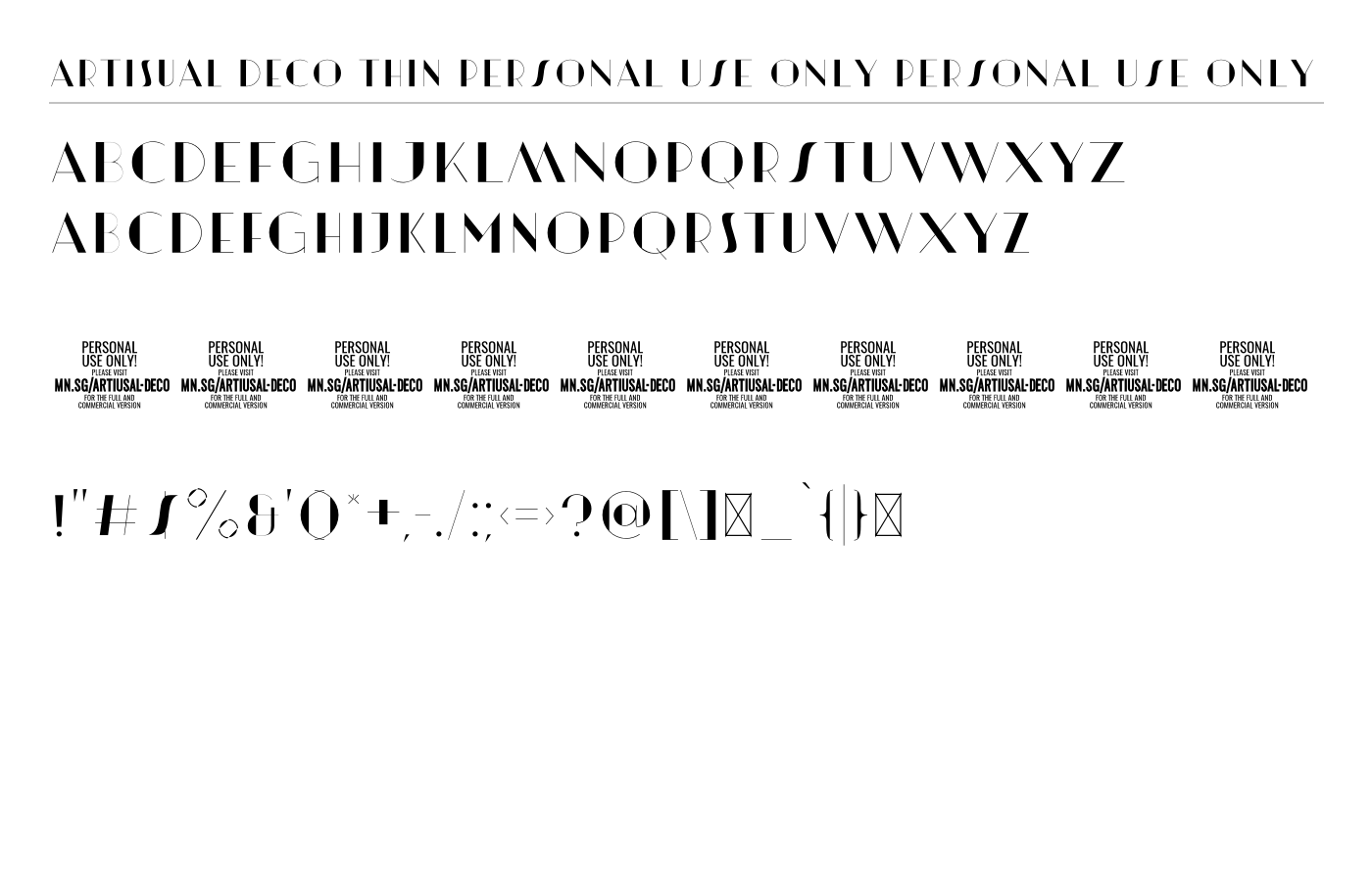
Artisual Deco Regular is a stylish, decorative sans serif font inspired by the Art Deco era, featuring a thin weight with high contrast between thick and thin geometric strokes. Its uppercase-only, elegant letterforms combine sharp angles and sleek curves, making it perfect for vintage-inspired branding, luxury logos, and eye-catching headlines. This font adds a sophisticated, artistic flair to designs where a bold yet refined aesthetic is desired.
About Artisual Deco Regular PERSONAL USE ONLY Font